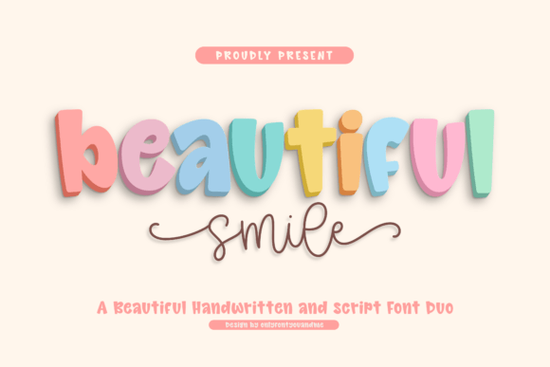
If you're looking for a font that brings warmth and personality to your designs without sacrificing readability, the Beautiful Smile Font is worth a closer look. It’s not just another handwritten typeface it’s a thoughtfully crafted duo that pairs a bold, rounded display style with a graceful script companion. This combination gives you flexibility whether you’re designing greeting cards, branding a small business, or creating cheerful print-on-demand products.
What makes this font duo stand out?
The main display font in Beautiful Smile features soft, puffy letterforms with gentle curves and subtle stroke variation. Despite its playful appearance, it stays highly legible thanks to open counters and balanced spacing important if your text needs to be read quickly (like on packaging or social media graphics). The baseline has a slight bounce, which adds liveliness without making words feel chaotic.
Paired with it is a smooth monoline script that flows naturally from letter to letter. It includes expressive swashes and seamless connections, giving your headlines or quotes an organic, hand-lettered feel. Together, these two styles create contrast while still feeling like they belong together a rare balance in many font pairings.
When should you use Beautiful Smile?
This font shines in projects that call for friendliness, approachability, and a touch of whimsy. Think:
- Birthday or baby shower invitations
- Children’s book titles or educational materials
- Branding for bakeries, boutiques, or wellness studios
- Print-on-demand mugs, T-shirts, or stickers with uplifting messages
- Social media quotes or seasonal greeting cards
Because the display style holds its own at large sizes and the script adds elegance without being fussy, you can mix them within the same layout for visual interest like using the bold version for a headline and the script for a subheading or signature.
How does it compare to other playful fonts?
If you’ve browsed Creative Fabrica’s display fonts before, you might recognize similar vibes in options like Have a Nice Day Honey, which leans into retro cheerfulness, or Bubble Skelly, known for its bouncy, almost cartoonish energy. Beautiful Smile sits somewhere in between more refined than Bubble Skelly but warmer and rounder than something like Varsity Narrow, which has a sporty, structured feel.
For those who love chunky, dimensional lettering, Stacked Chunky offers bold impact, while Kidpop delivers youthful exuberance with exaggerated shapes. Beautiful Smile doesn’t go as extreme in either direction; instead, it focuses on harmony and versatility making it easier to integrate into professional yet personable designs.
Tips for getting the most out of this font
Because it’s a duo, take time to experiment with hierarchy. Try the display font for primary messaging (like “Welcome!” or “Sale!”) and let the script handle supporting phrases (“Handmade with love” or “Enjoy every moment”). Avoid using both styles at the same weight or size that can create visual competition rather than contrast.
Also, keep backgrounds simple. These fonts already have personality, so pairing them with busy patterns or heavy textures can dilute their charm. A soft pastel, clean white, or muted earth tone lets the letterforms breathe.
Finally, remember that even playful fonts benefit from good typesetting. Adjust letter spacing slightly if words feel too tight, and avoid stretching or distorting the glyphs these fonts were designed with specific proportions for a reason.
Ready to try it?
If your next project calls for joy without gimmicks, Beautiful Smile offers a balanced blend of fun and function. It’s especially useful for small businesses and crafters who want their work to feel personal but polished.
Before you download, ask yourself:
- Do I need both a bold display and a flowing script? (If yes, this duo saves you from hunting two separate fonts.)
- Is my audience likely to respond to warm, friendly typography? (Great for kids, moms, gift shoppers, or wellness communities.)
- Will this be used primarily in digital graphics, print, or merchandise? (It works well across all three.)
If most answers are “yes,” give Beautiful Smile a test run it might just become your go-to for spreading good vibes through design.